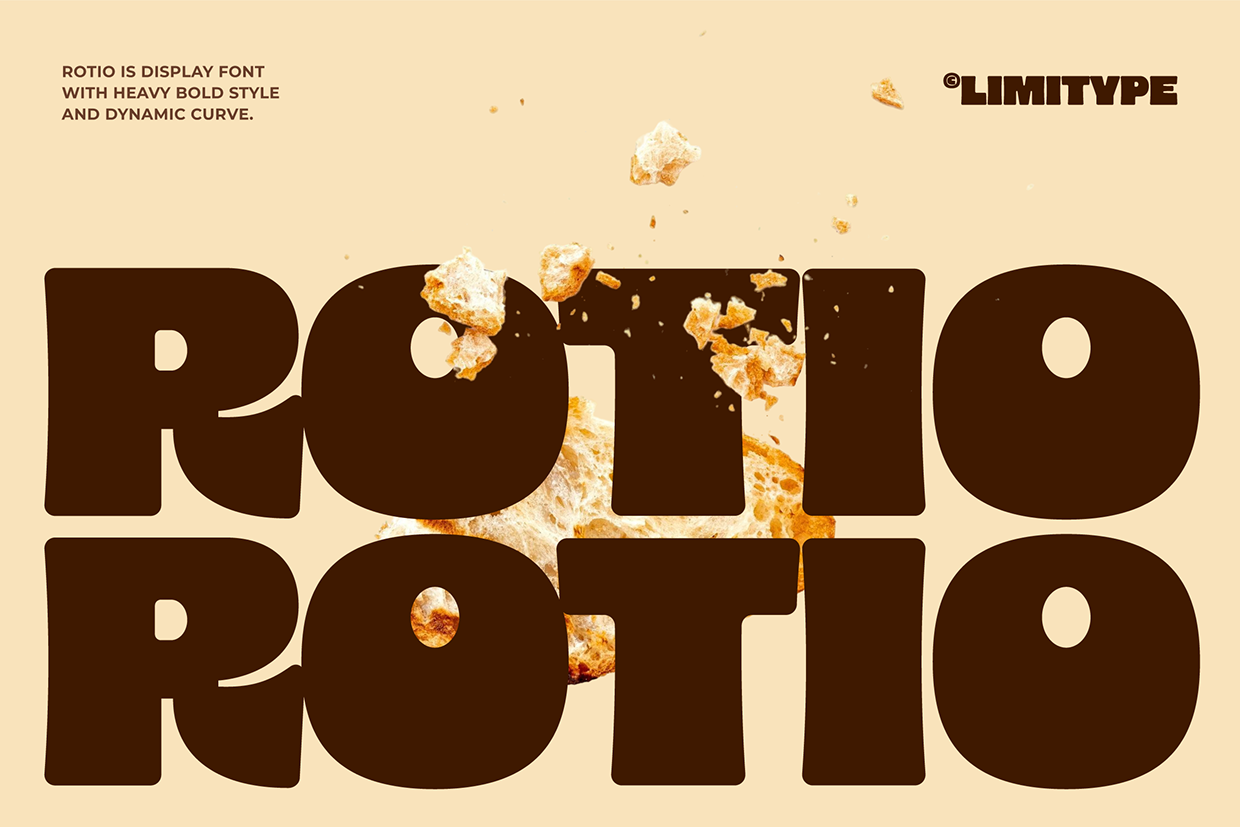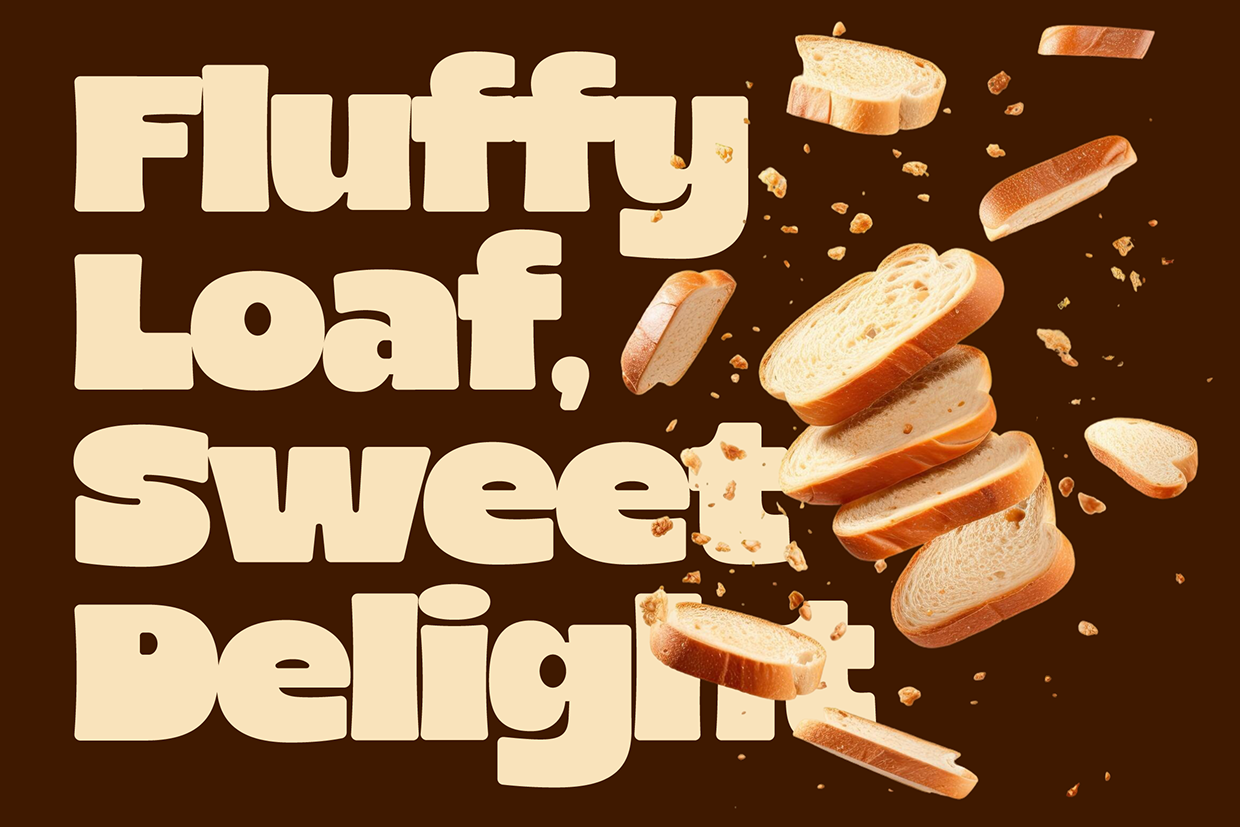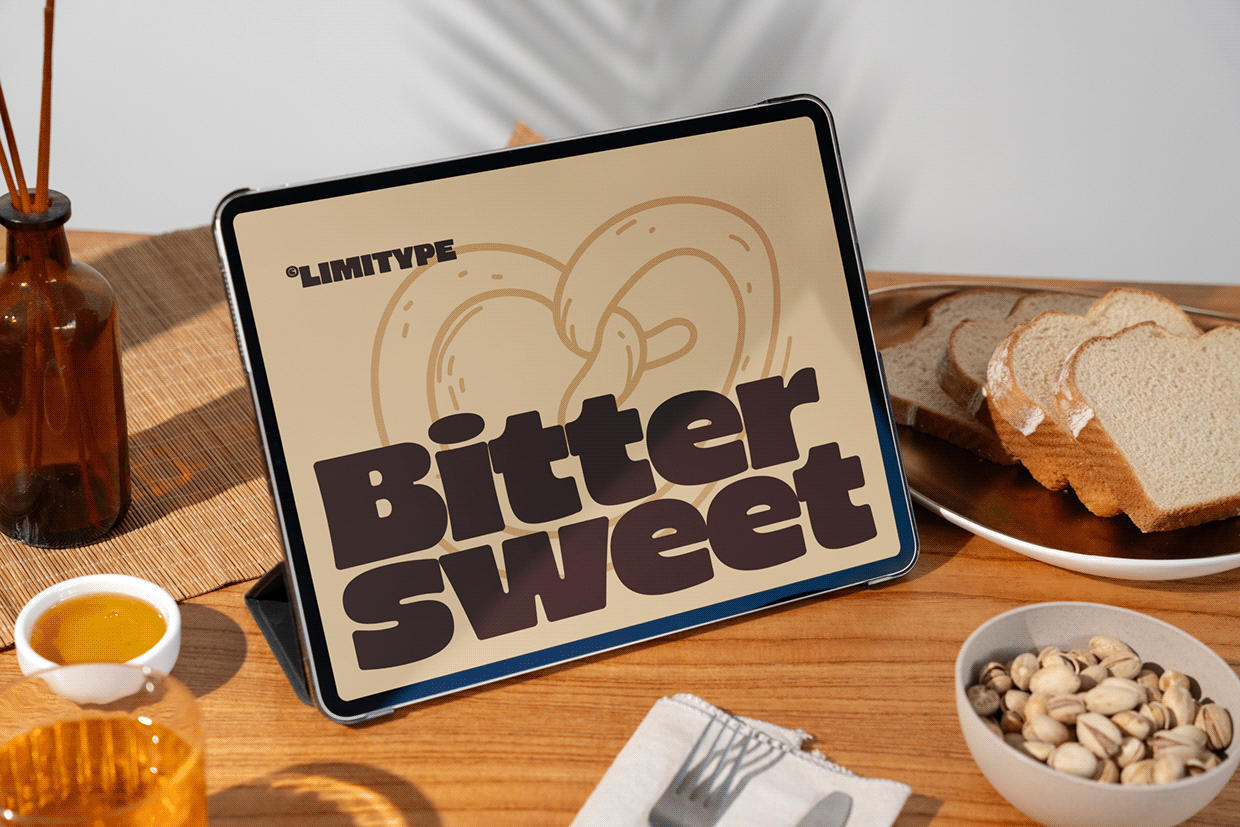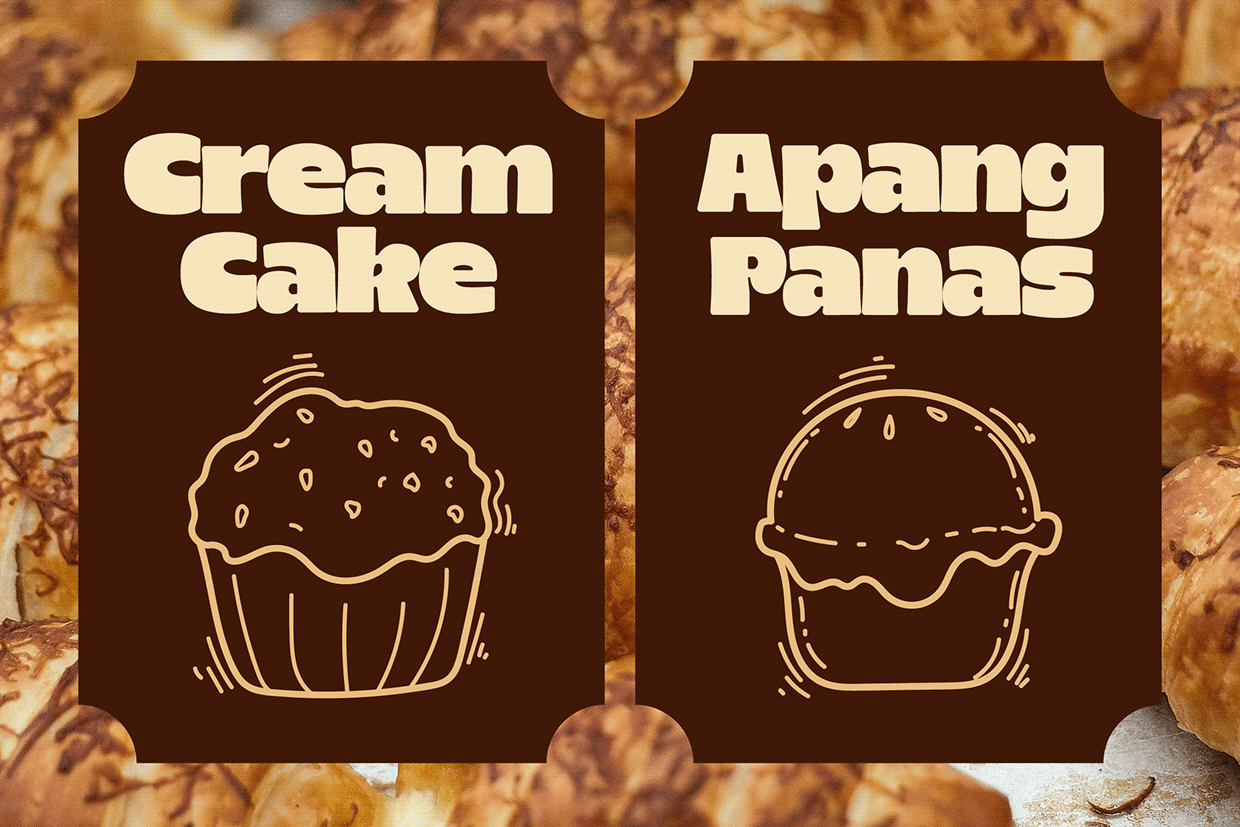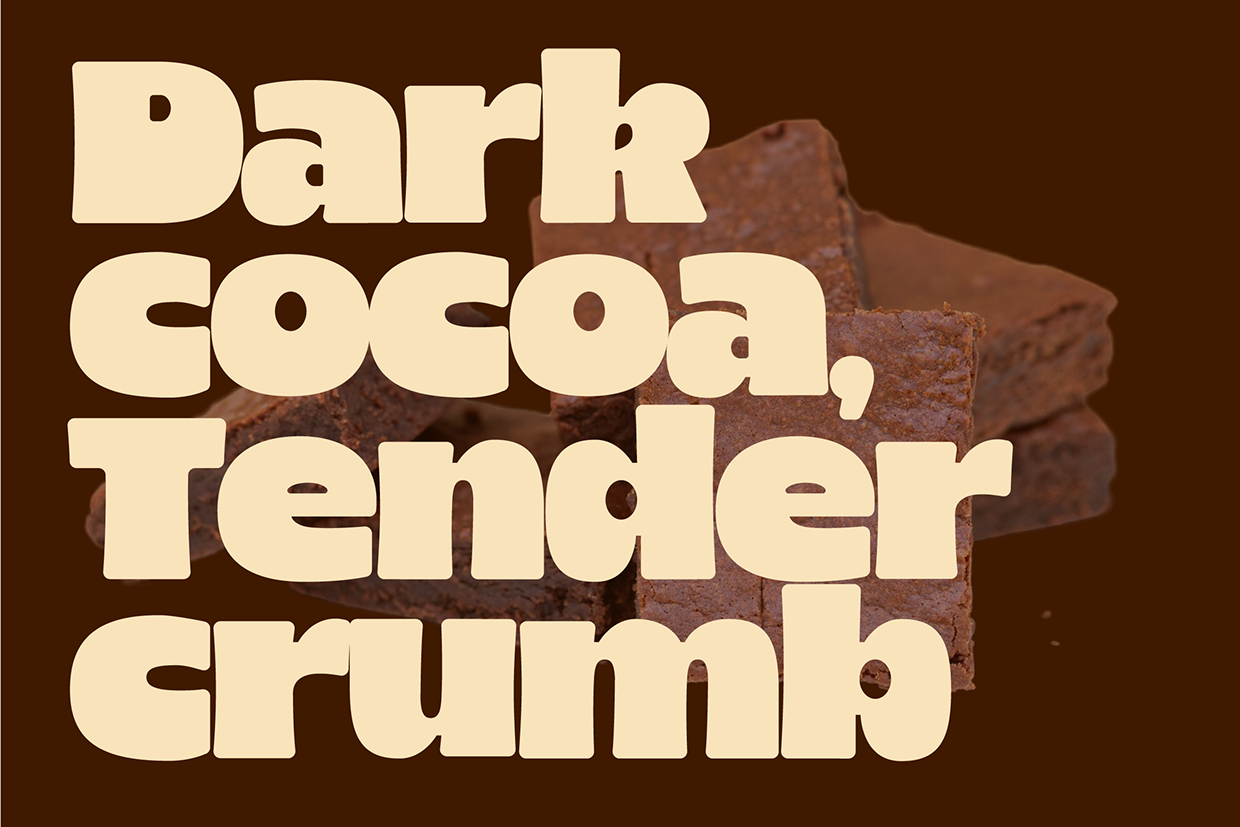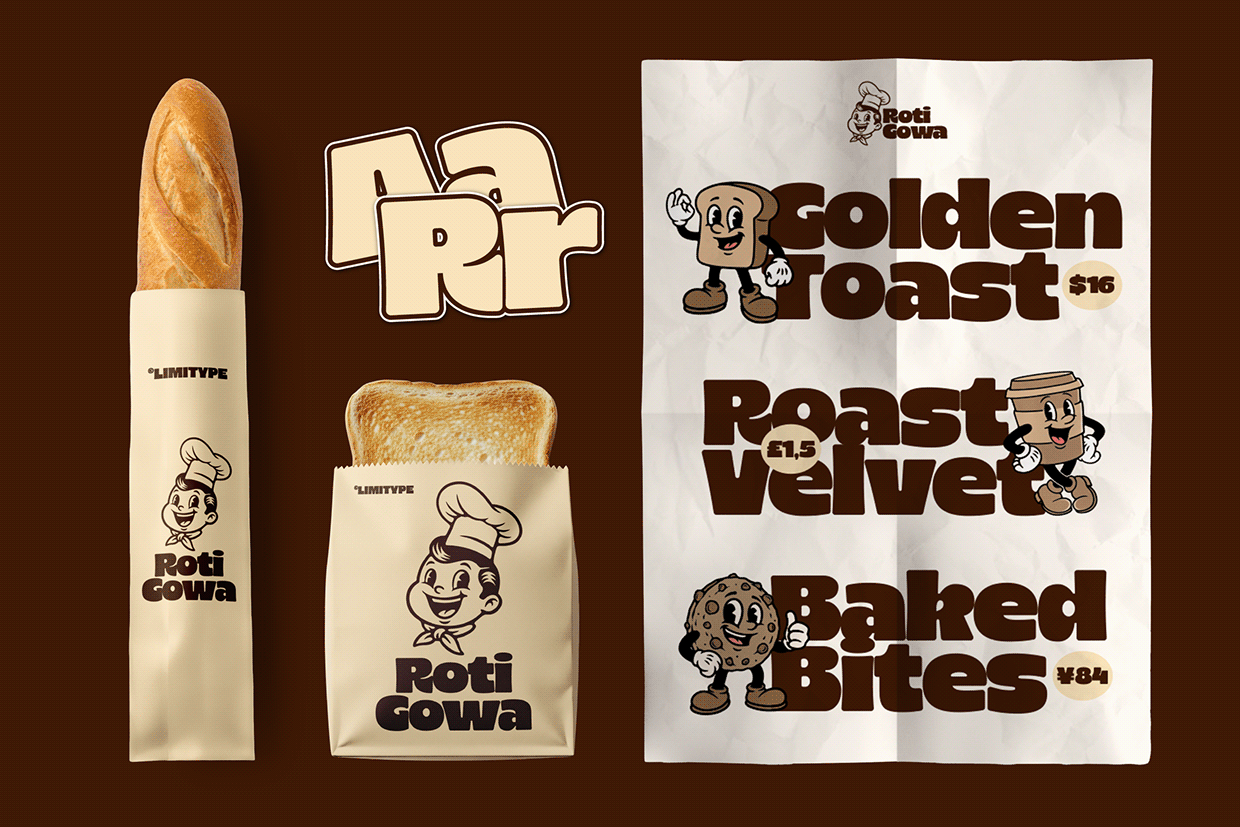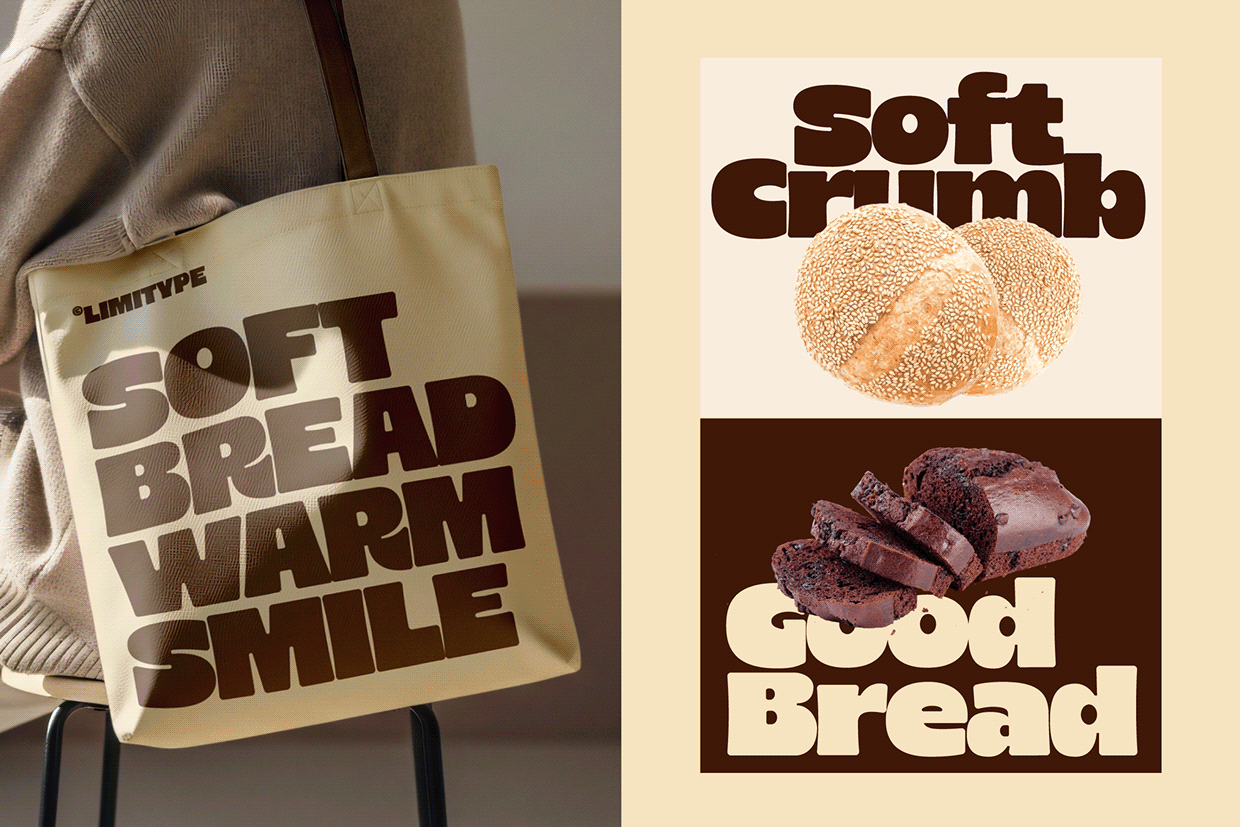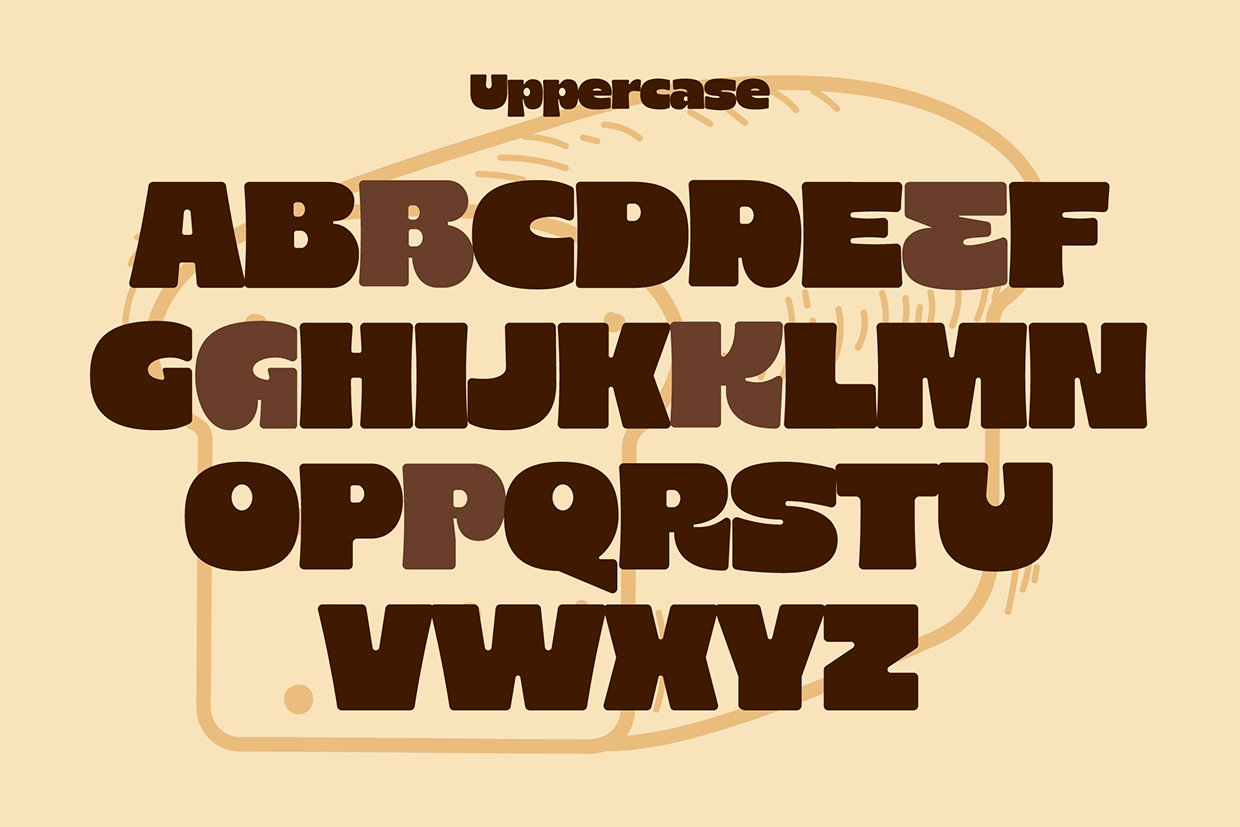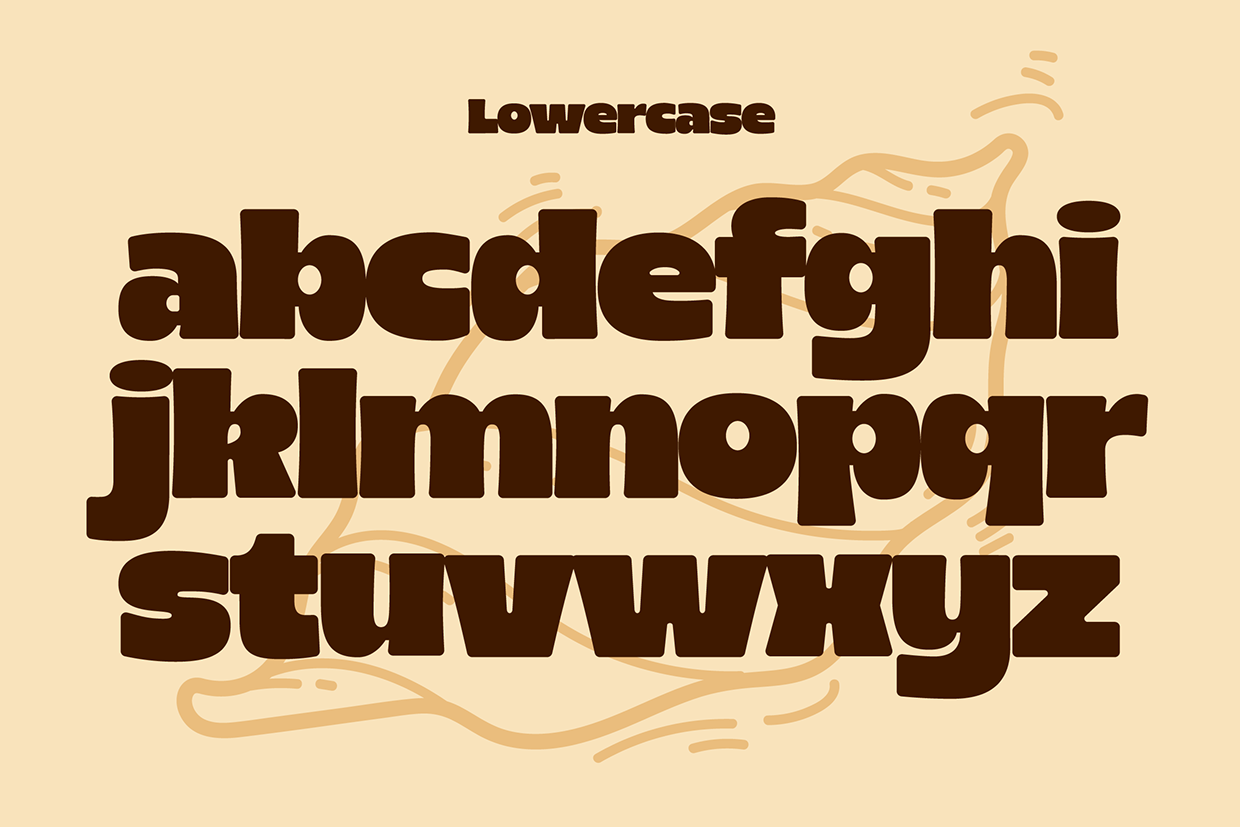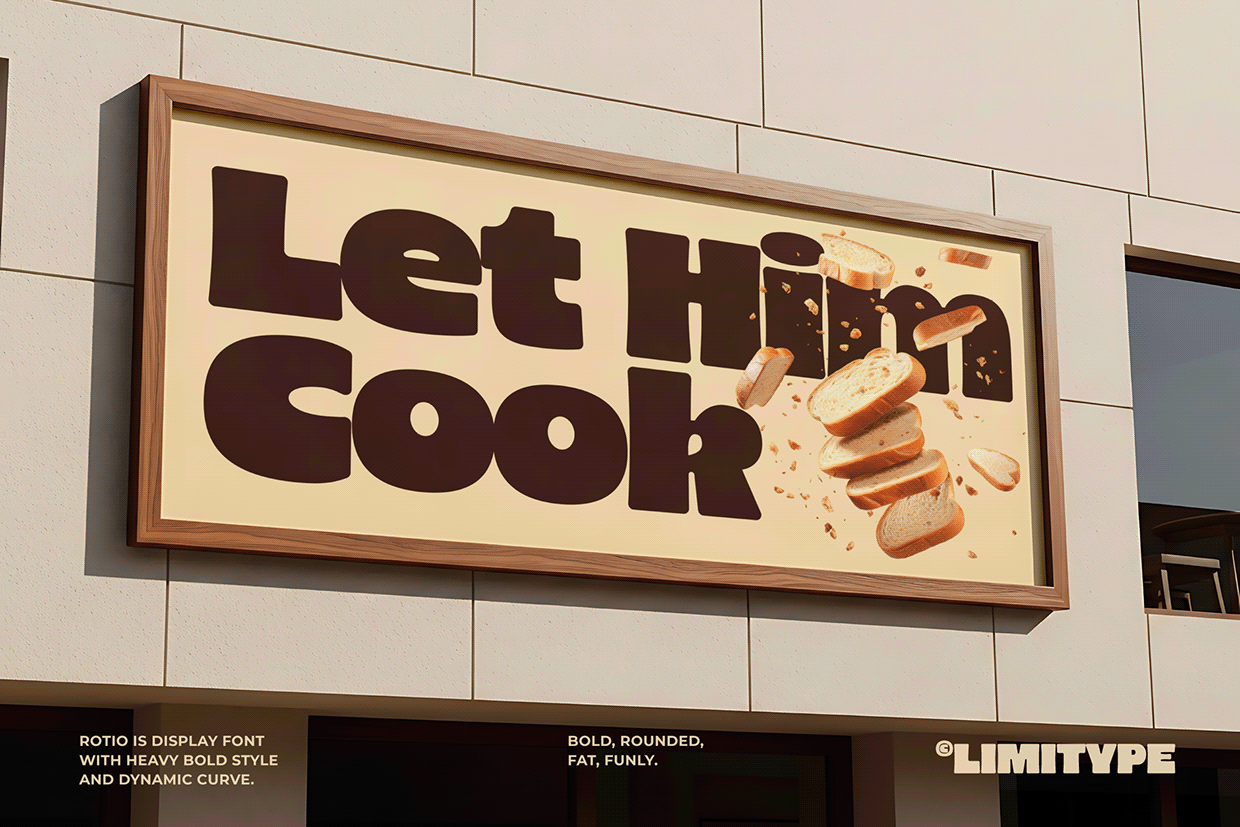
Rotio - Bold Font
Rotio is a bold display font featuring soft, rounded, and expressive letterforms, delivering a playful, friendly, and energetic impression. Its smooth character with rounded edges creates a cheerful, warm, and approachable appearance without sacrificing visual strength. This font is ideal for headlines, posters, covers, branding, packaging, and creative designs that aim to look fun, bold, and full of personality.